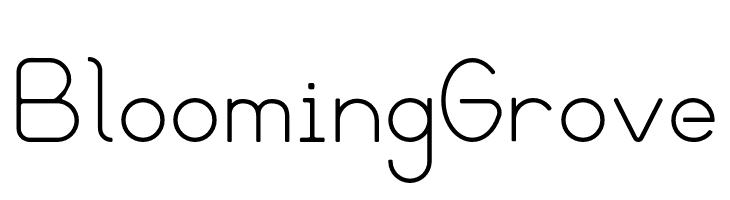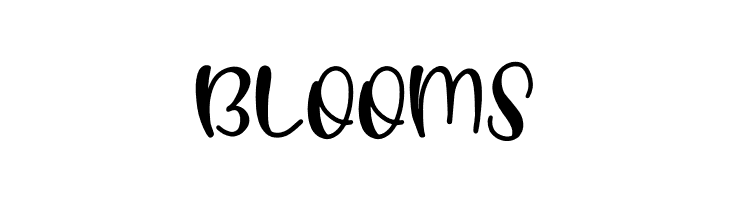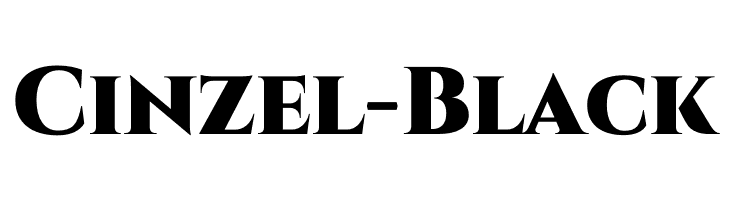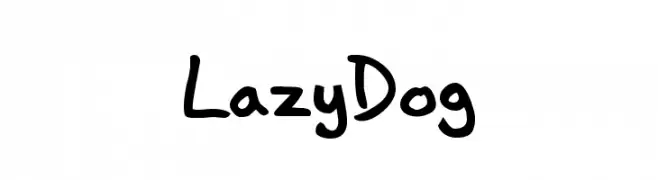
A playful, handwritten font with smooth, rounded edges and a casual vibe.
A bold, expressive script font with dynamic, sweeping strokes and elegant curves.
A decorative, cursive font with artistic, hand-drawn qualities.
A dynamic, expressive handwritten font with fluid, brush-like strokes.
A dynamic, brush-style font with fluid, hand-painted strokes.
A lively and expressive handwritten font with playful flourishes.
A clean, modern sans-serif font with consistent stroke width and balanced spacing.
A playful, bold handwritten font with thick strokes and whimsical curves.
A bold, rounded sans-serif font with a modern and clean look.
A modern, geometric sans-serif font with a clean and balanced design.